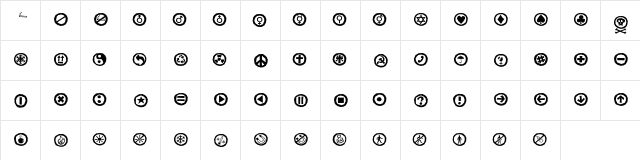
AleSignsWhiteLL Regular
Design Context for AleSignsWhiteLL Typeface
AleSignsWhiteLL takes a measured approach to typography — its balanced proportions and neutral character make it a reliable workhorse for both digital and print work.